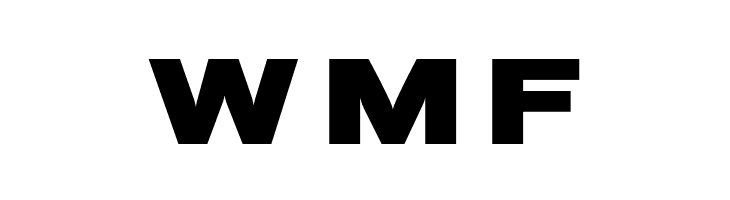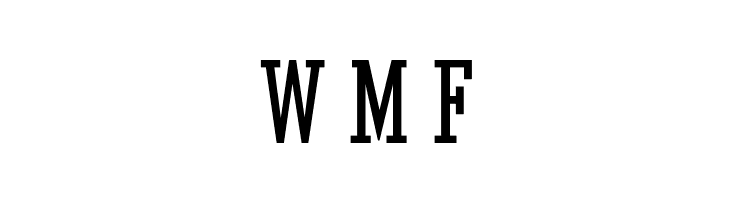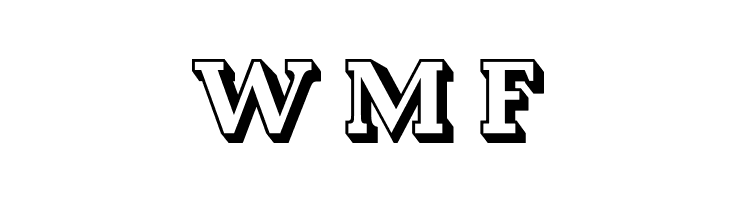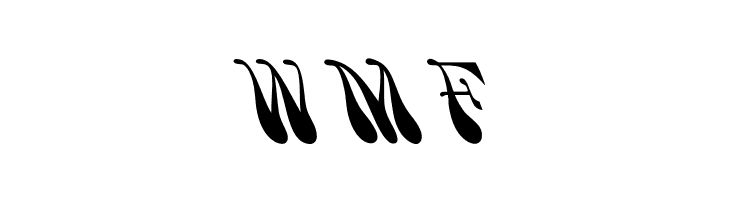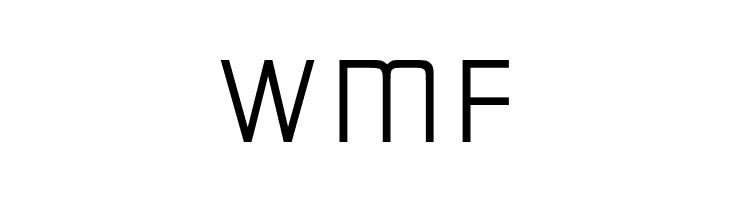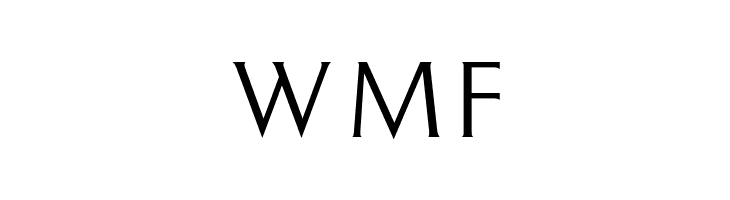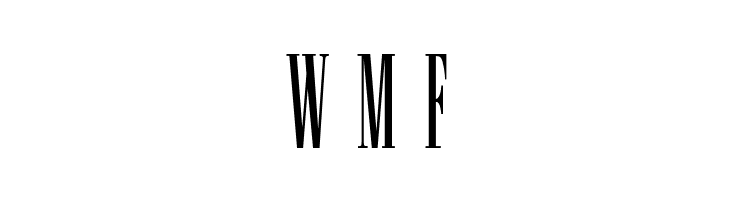
A distinctive serif font with sharp angles and flowing curves, blending traditional and modern styles.
A bold, rounded font perfect for impactful headlines and modern designs.
A whimsical, smoke-inspired font with flowing, artistic characters.
A bold, serif font with thick strokes and rounded serifs, offering a classic yet modern appeal.
A tall, elegant font with high contrast and condensed letterforms.
A dynamic, flowing script font with bold, slanted uppercase letters and elegant cursive lowercase forms.
A modern, geometric font with clean lines and rounded corners.
A modern, geometric sans-serif font with an extended width and clean lines.
A bold, extended font with a modern and impactful style.
A modern, geometric sans-serif font with bold uppercase letters.
A bold, shadowed font with a strong, geometric design.
A bold, industrial font with three-dimensional shading and a strong geometric style.
A bold stencil font with geometric shapes and distinct breaks, ideal for impactful designs.
A classic serif font with elegant strokes and a light weight.
An elegant script font with graceful loops and swashes, perfect for decorative use.
A bold, classic serif font with strong, well-defined characters.
A bold, condensed serif font with strong strokes and high contrast.
A light, elegant serif font with moderate contrast and refined details.
A classic serif font with medium weight and moderate contrast, ideal for formal and structured designs.
A bold, outlined font with a classic yet modern appeal.
An elegant serif font with a classic italic style, perfect for formal uses.
A modern, extended sans-serif font with clean lines and balanced spacing.